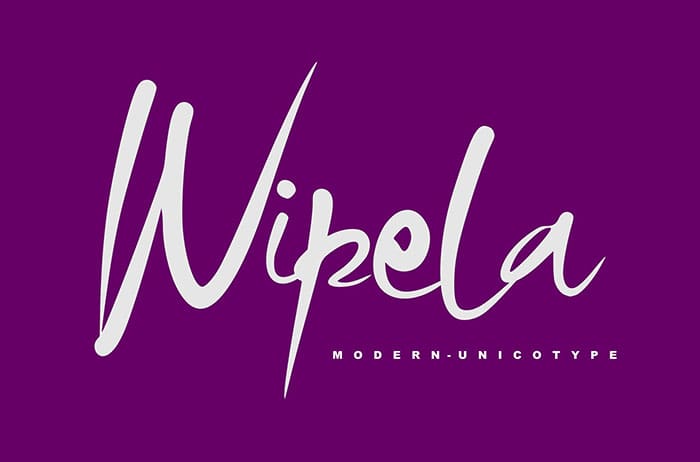
Wipela Display Font
Wipela simplifies elegance into the one truly outstanding display font. This font will appeal to a wide range of crafty ideas, from letterheads and titles to stationery. Thanks to Vunira Studio for sharing this font! Take a look at this portfolio for more of his stunning fonts.